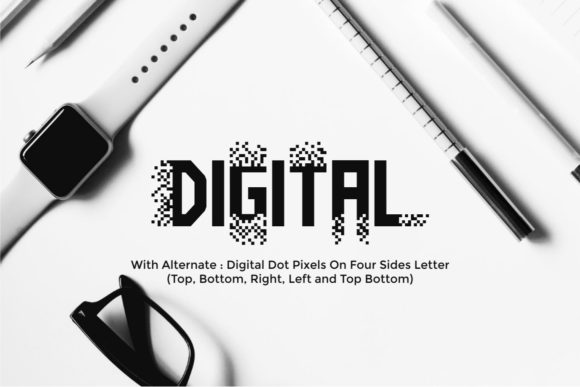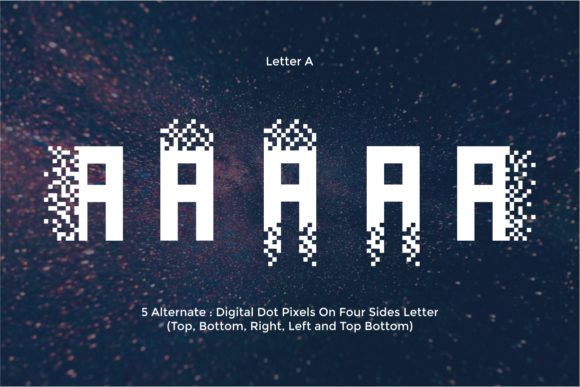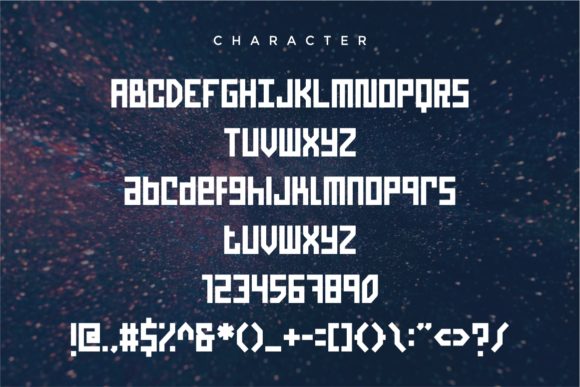
Introduction to Pixel Bit Typeface Font
Inspired by pixels and computers screens, Pixel Bit is a uniquely modern display typeface that will add a futuristic and digital feel to a lot of design projects.
👤 Author putracetol
Inspired by pixels and computers screens, Pixel Bit is a uniquely modern display typeface that will add a futuristic and digital feel to a lot of design projects.
Key Features of Pixel Bit Typeface Font
Why Choose Pixel Bit Typeface Font?
Pixel Bit Typeface Font offers exceptional quality and versatility, making it a valuable addition to your design toolkit. Whether you’re creating for personal projects or commercial use, Pixel Bit Typeface Font delivers professional results.